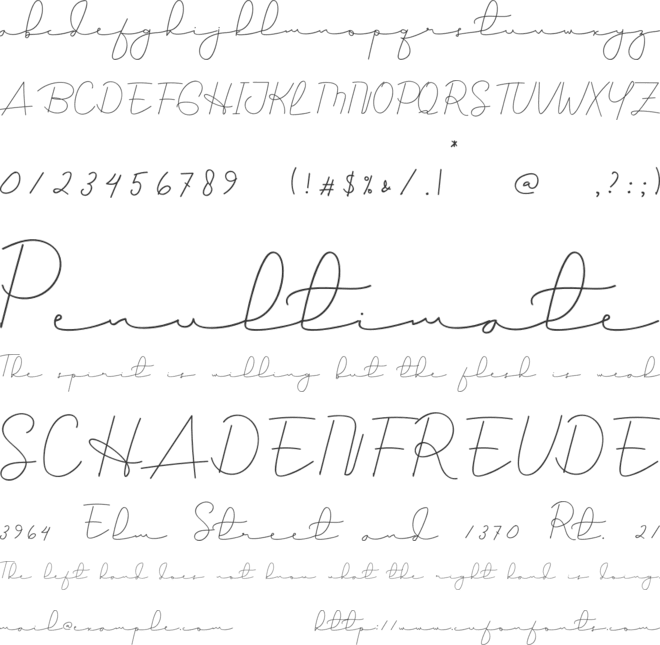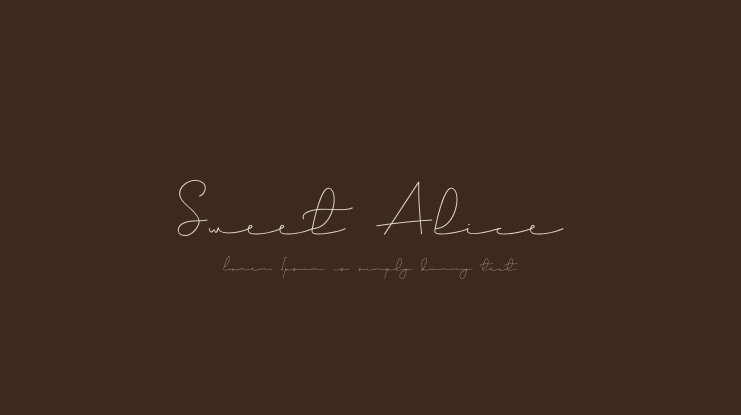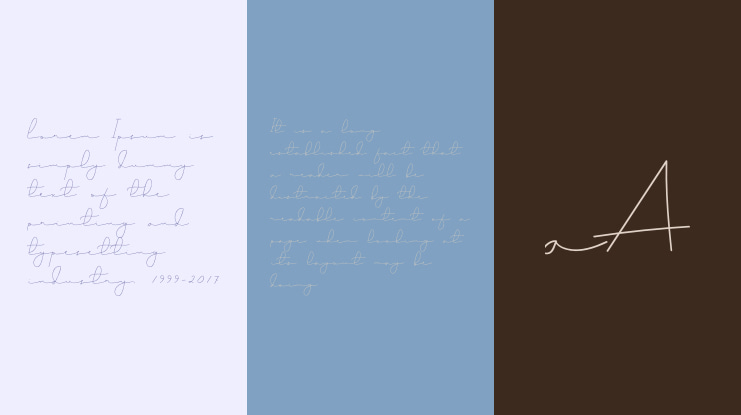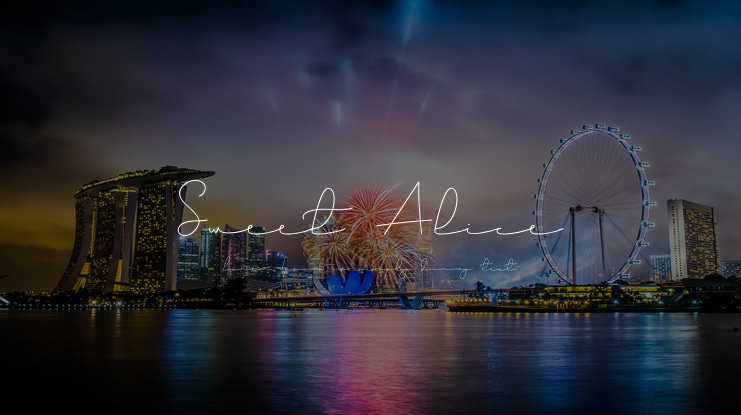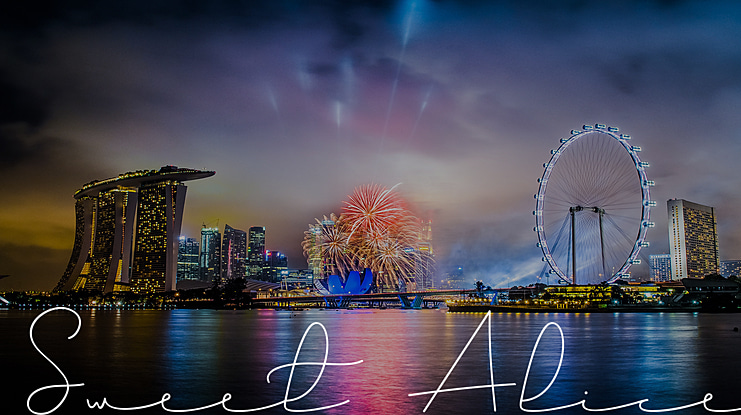
Sweet Alice Font
Sweet Alice is a stylish, cursive and thin script font. This font is neatly crafted and highly detailed. Whatever the topic, this font will be a wonderful asset to your font library, as it has the potential to enhance any creation.